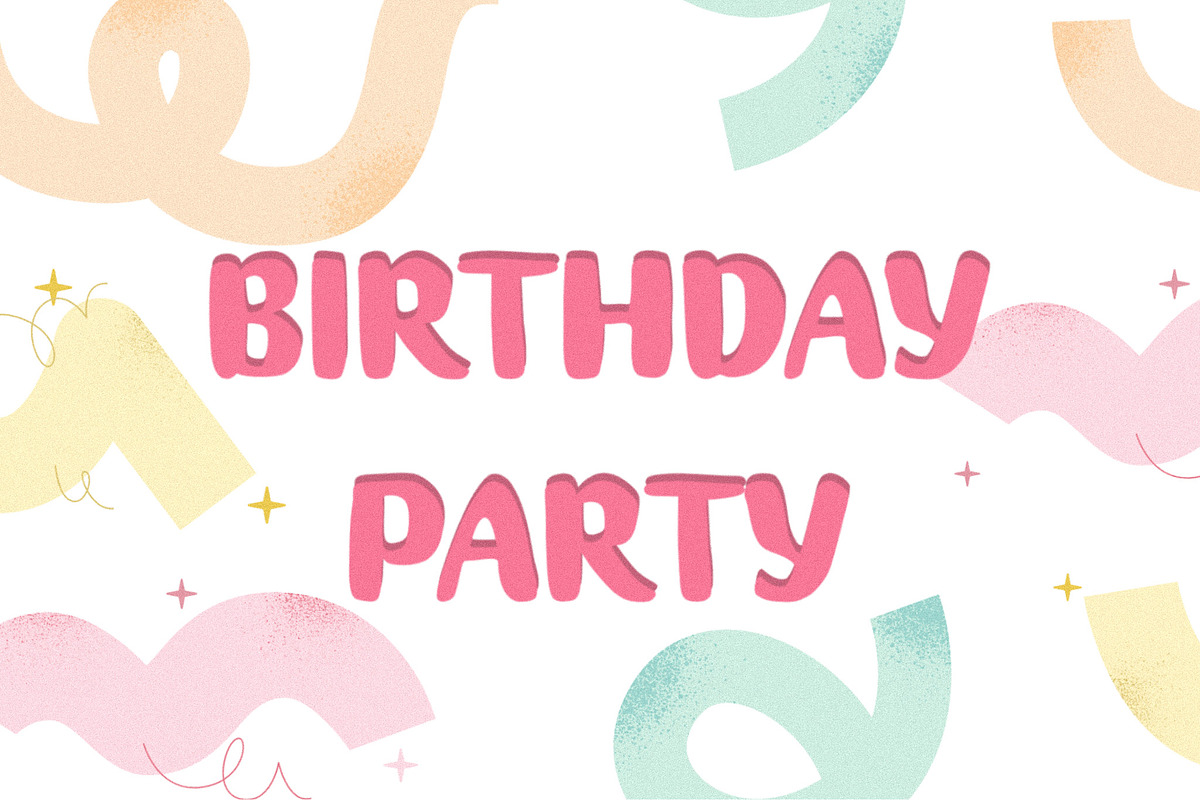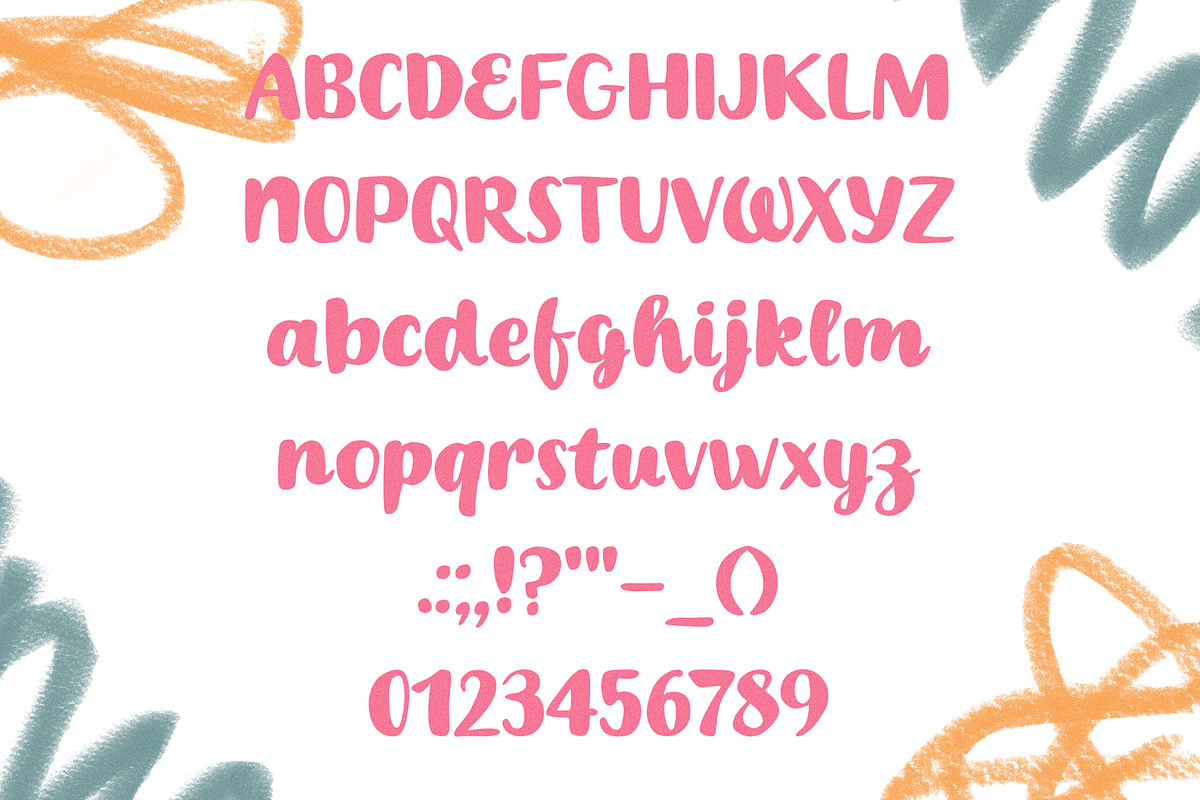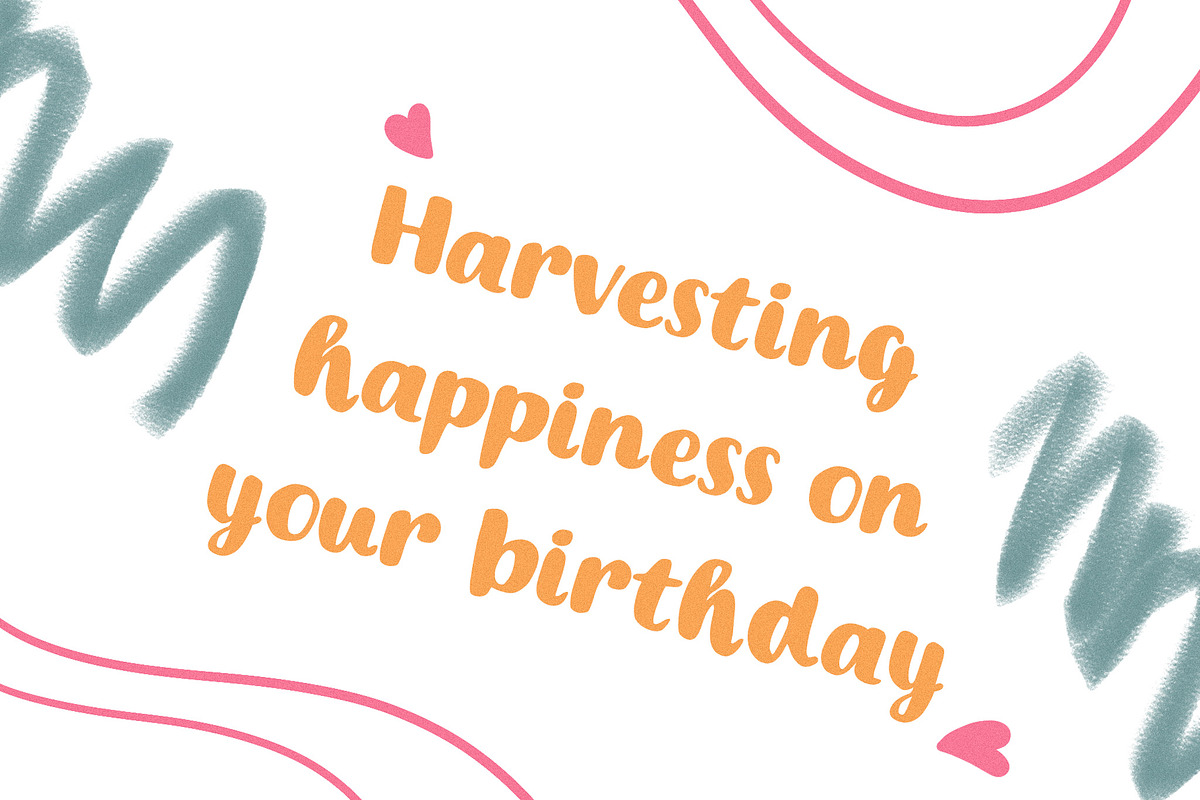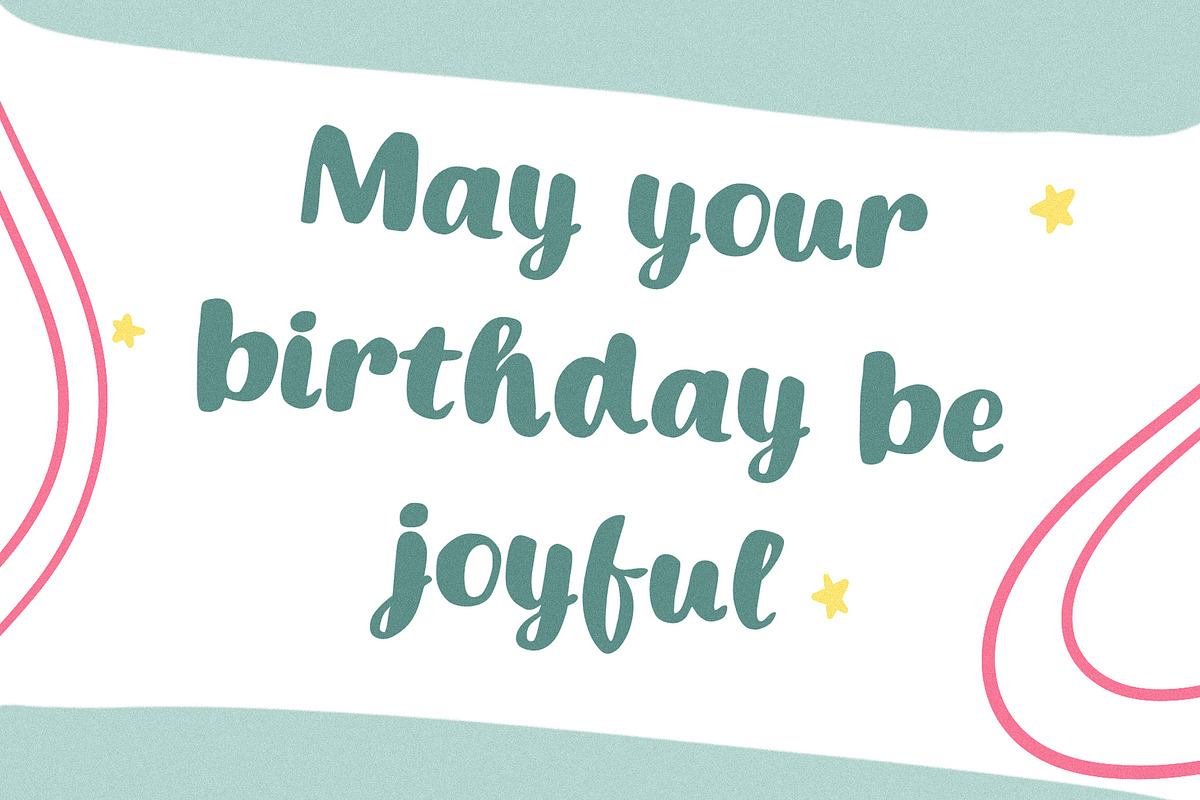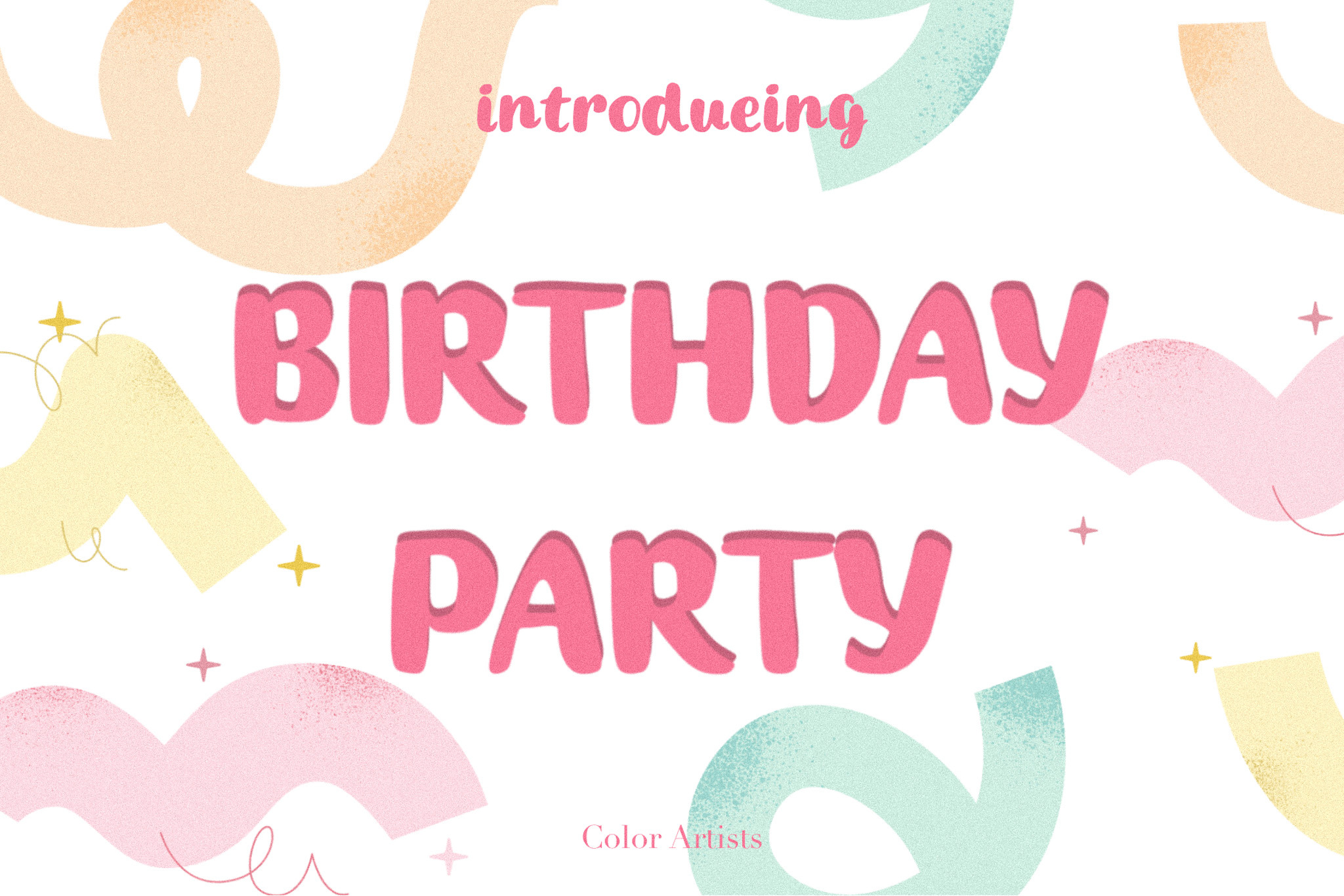
Birthday Party FONT
Celebrate your special day in style with our Birthday Party font! This playful and festive script font is perfect for all your birthday projects, whether you're designing invitations, creating banners, or crafting party favors. With its lively and fun style, this font is sure to add a touch of excitement to your designs. Whether you're turning 5 or 50, the Birthday Party font is the perfect choice to add a touch of joy to your birthday celebrations. So why settle for boring fonts when you can make your birthday truly special with our Birthday Party font? Try it out today and make your celebration extra fun and memorable!